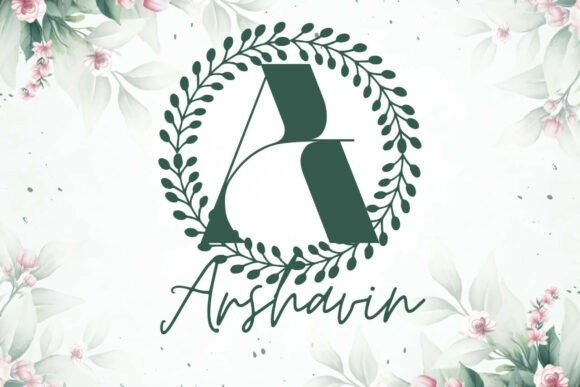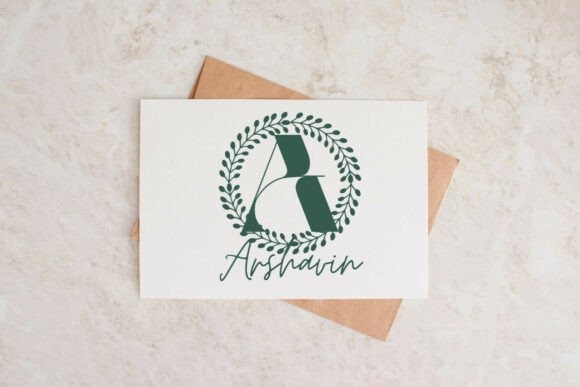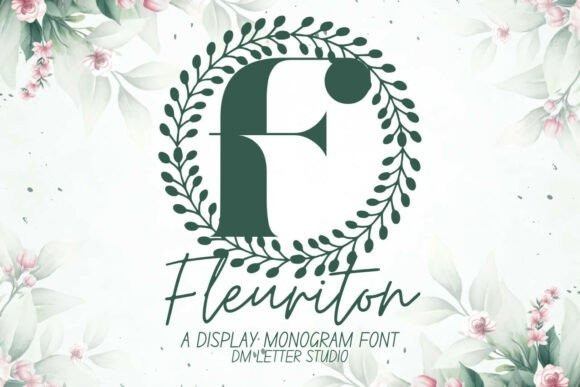
Fleuriton Monogram Font
Fleuriton Monogram Font turns simple initials into elegant, garden-inspired emblems. Strokes feel smooth and balanced, while subtle floral cues add a soft, premium touch without harming clarity. Open counters keep tiny tags and foil seals readable, so your pieces look polished at every size. Use it for wedding suites, boutique logos, keepsake gifts, and upscale packaging. In addition, Fleuriton pairs beautifully with refined serifs or a quiet humanist sans, which helps layouts feel cohesive with minimal effort.
Where this monogram font shines
Set single, double, or triple initials for logos, seals, menus, and place cards. Then frame them with laurel rings, oval borders, or fine rules to echo the botanical rhythm. Since proportions favor symmetry and calm spacing, centered compositions come together in minutes. As a result, your thumbnails stand out on crowded marketplaces and your listings look consistent from invitations to signage. Fleuriton also scales smoothly from jewelry cards to entry displays, making it ideal for event décor and retail packaging.
Fast setup, premium results
Design tips for Fleuriton Monogram
Keep initials large and let white space breathe. Pair the headline monogram with a soft serif for body text or a clean sans for labels. Add micro shadows, a fine inner stroke, or a delicate frame for depth. Because the structure is airy, textured papers, pearlescent stocks, and metallic accents raise perceived value. However, keep copy short so the monogram remains the hero—especially on favors, tags, and wax seals.